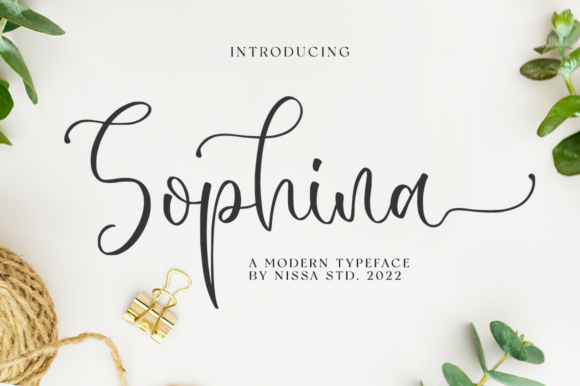
Unveil the Sophina Font - A Timeless Masterpiece for Your Creative Endeavors.
Immerse yourself in the world of elegance and artistry with Sophina, a captivating handwritten font crafted to perfection by NissaStudio. Experience the allure of its sweeping strokes and delicate curves, designed to evoke a sense of timeless beauty and sophistication in your creative projects.
Sophina's graceful script dances across the page, adding a touch of personal charm to wedding invitations, thank-you cards, heartfelt quotes, and greeting cards. Its versatility extends to logos, business cards, and any design seeking a customized touch. With Sophina, your creations will leave a lasting impression, captivating hearts with its timeless allure.
As a PUA-encoded font, Sophina grants you effortless access to a treasure trove of glyphs and swashes. Unleash your imagination and explore endless possibilities, adding intricate details and flourishes that bring your designs to life. Experience the joy of seamless customization, transforming your words into works of art.
With Sophina by your side, embark on a creative journey where emotions find their voice and stories unfold with grace. Let its elegant charm elevate your projects, leaving an indelible mark on the hearts of your audience. Embrace the beauty of Sophina and watch your designs blossom into masterpieces.